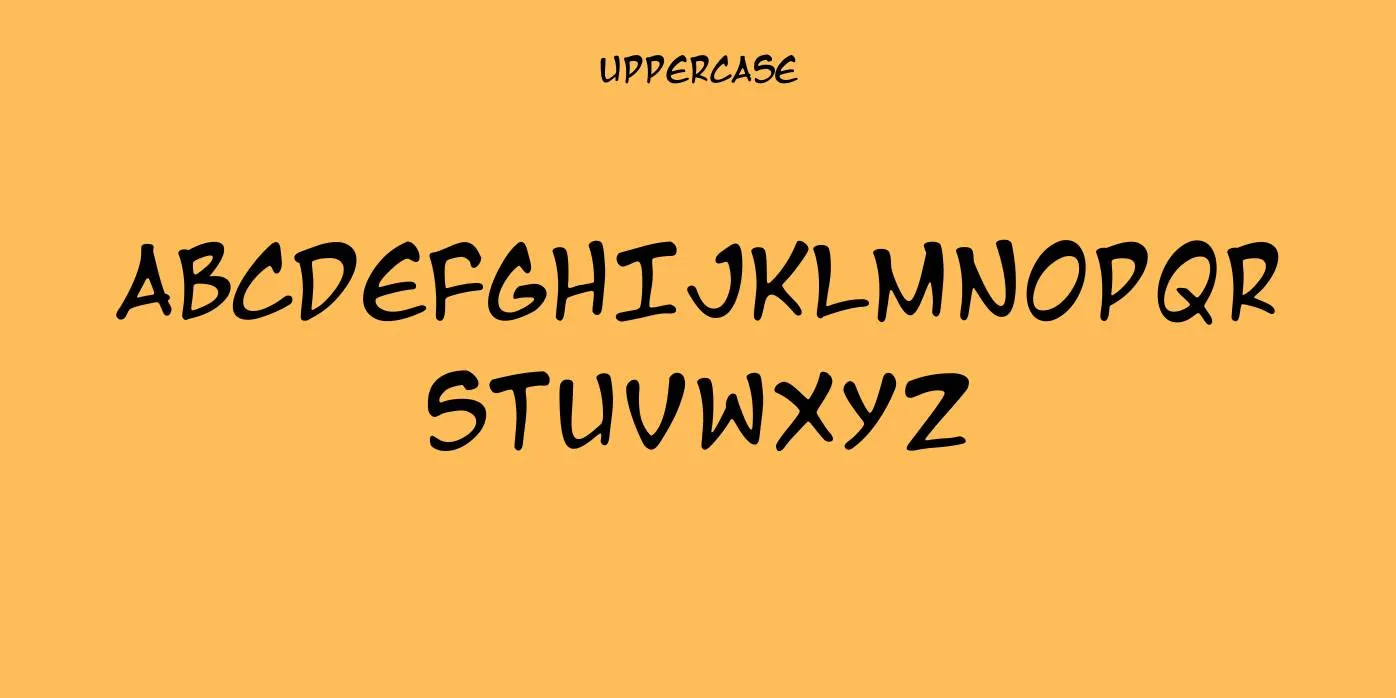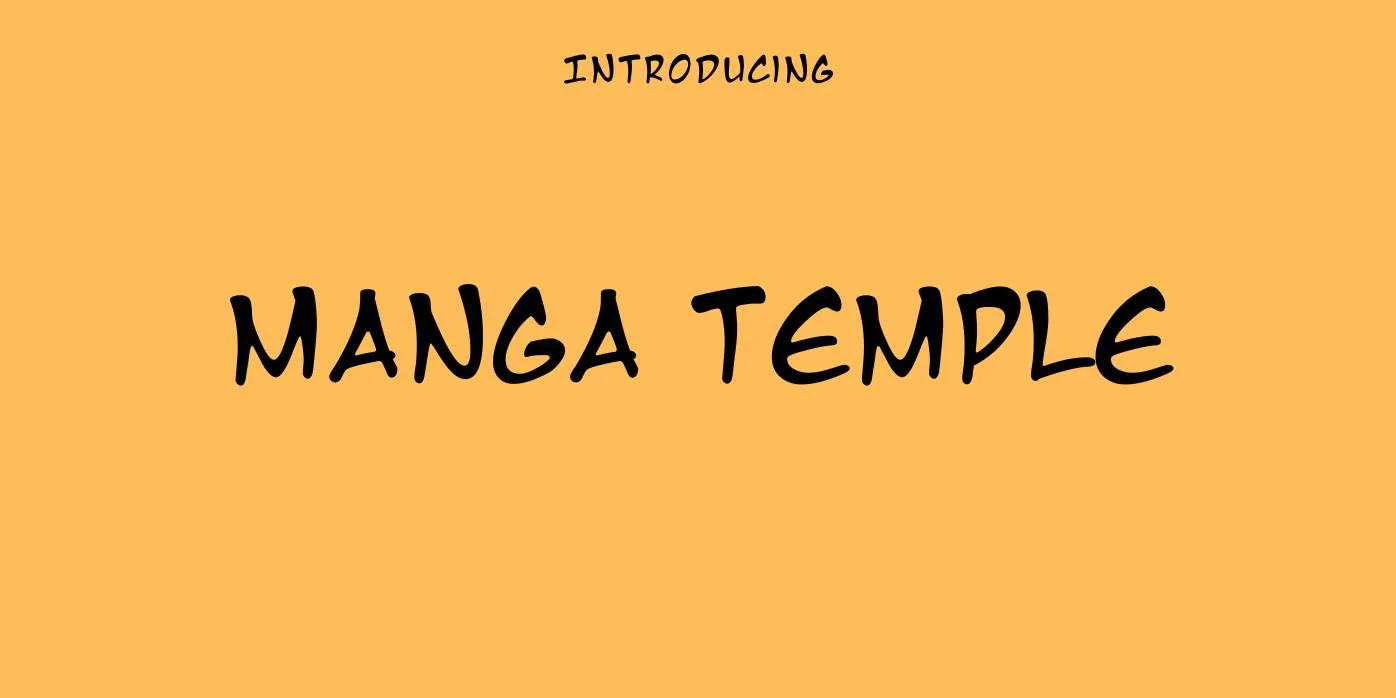
Manga Temple Font
Here we discuss detailed information about Manga Temple Font. This font was designed by a famous typographic designer Nate Piekos and published through Blambot. It belongs to the fancy texture family with a unique character look.  It comes in 3 different variations including mangatb, mangat, and mangati. You can easily get these variations from our website in ttf and otf file formats.
You can easily download this font on all kinds of operating systems. It has also other amazing features and it contains 109 characters in its single weight. You can also use this font for pairing with other fonts like jeopardy font, to give a more attractive look to your projects. Usage Its characters look very elegant and unique which makes your project perfect.
You can use this font to make attractive logos and titles for different kinds of movies or games. It became very famous among kids because of its fancy texture. For making comic designs for kids-related items it can be used to give an attractive look to your projects. To make a logo and posters for your design, you can also easily upload it in Adobe Photoshop and many other third-party applications like Canva.